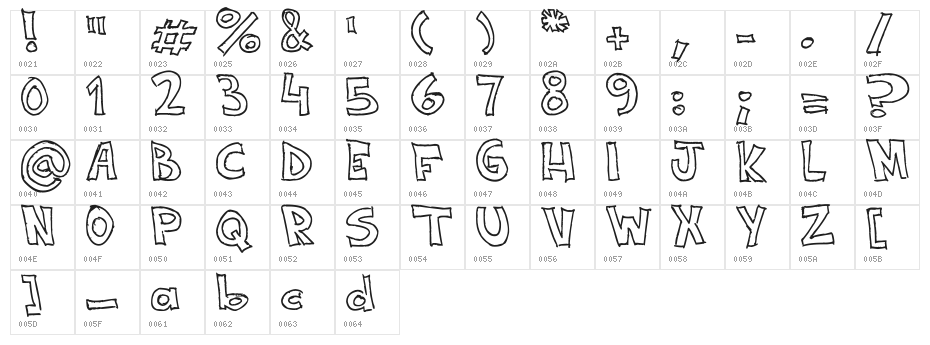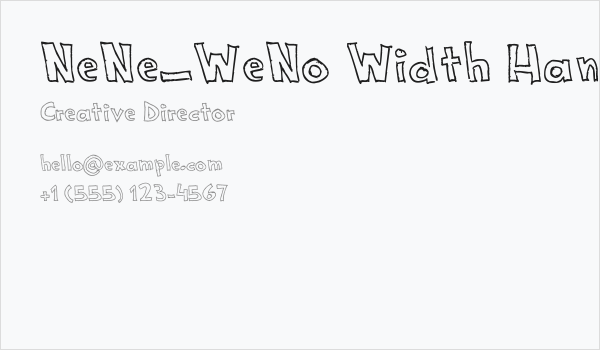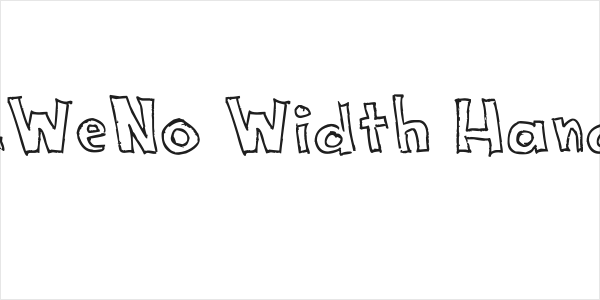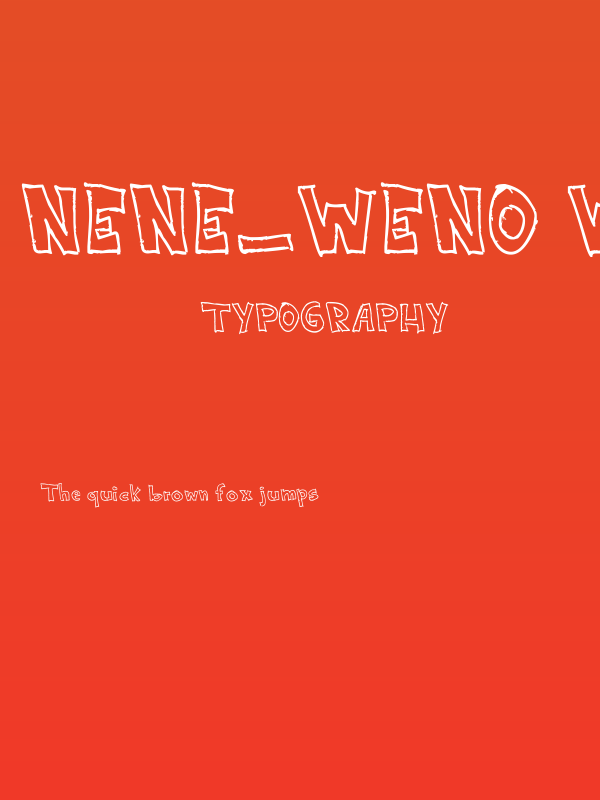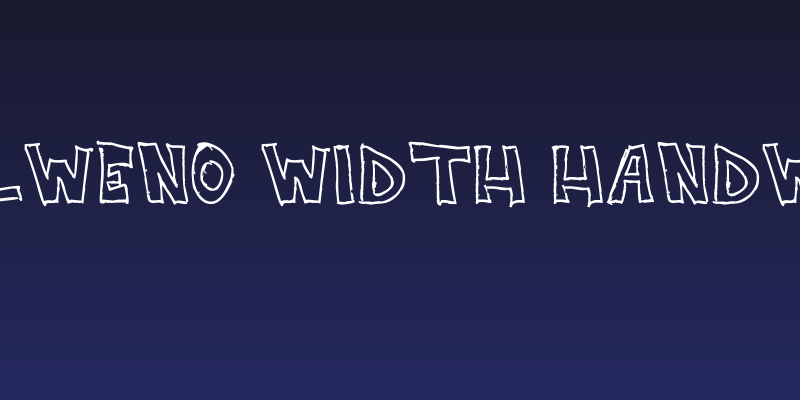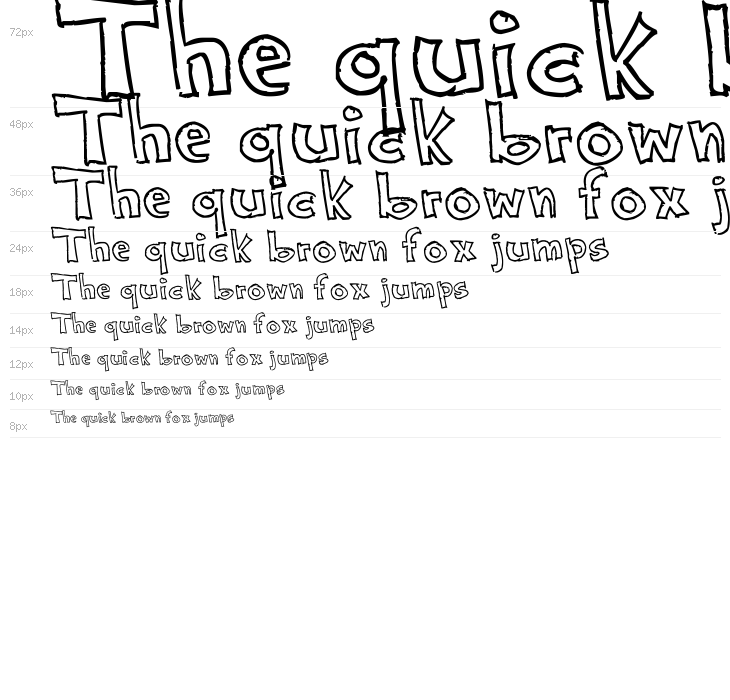
NeNe_WeNo Width HandWrite Font
NeNe_WeNo Width HandWrite Description
This font features a playful and hand-drawn style, characterized by its uneven lines and quirky shapes. The letters have a casual, informal appearance, with a slightly irregular baseline that adds to the whimsical feel. The uppercase and lowercase letters maintain a consistent style, with exaggerated curves and angles that give the font a dynamic and energetic look. The numbers and special characters follow the same design principles, ensuring a cohesive appearance across all glyphs. This font is perfect for projects that require a fun and approachable aesthetic.
| Proposed Projects | Ideal for children's books, comic strips, playful branding, and casual invitations. |